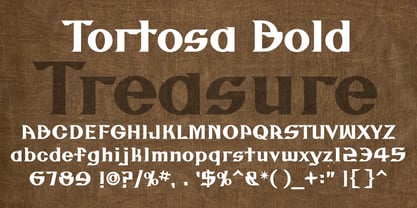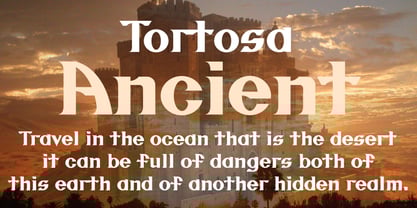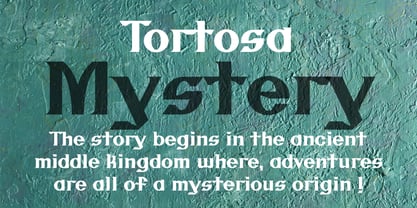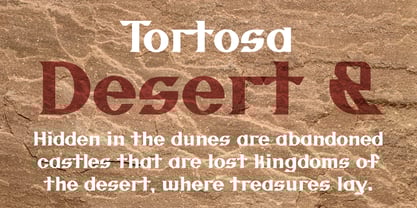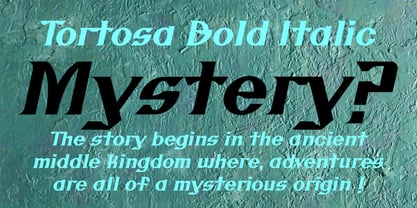
Tortosa
Die Schriftfamilie Tortosa wurde von Glenn Parsons entworfen und von astroluxtype veröffentlicht. Tortosa enthält 2 Stile und Familienpaketoptionen.
Ancient. Mystery. Desert. Castles. Treasure. While Tortosa is not treasure in itself, it could add a special feeling to your next cover for a historical novel. A travel map to the ancient middle east, Tortosa has the look of vintage travel brochure as well. The origin for this font was book cover design that I created many years ago and after finding the pencil tissue in bottom of one of cabinets I decided it was font as well. The oddity of a partial serif or half serif of the design intrigued me and as it has come together while creating it, I find it does that more and more each day.